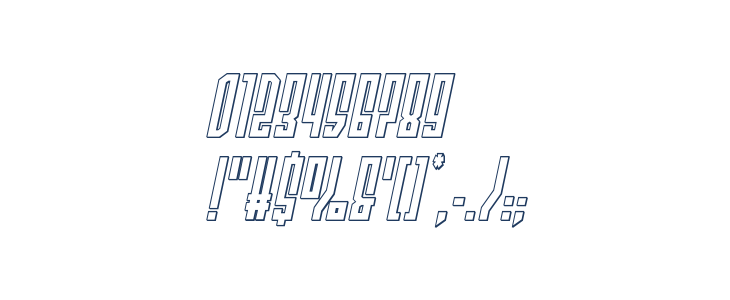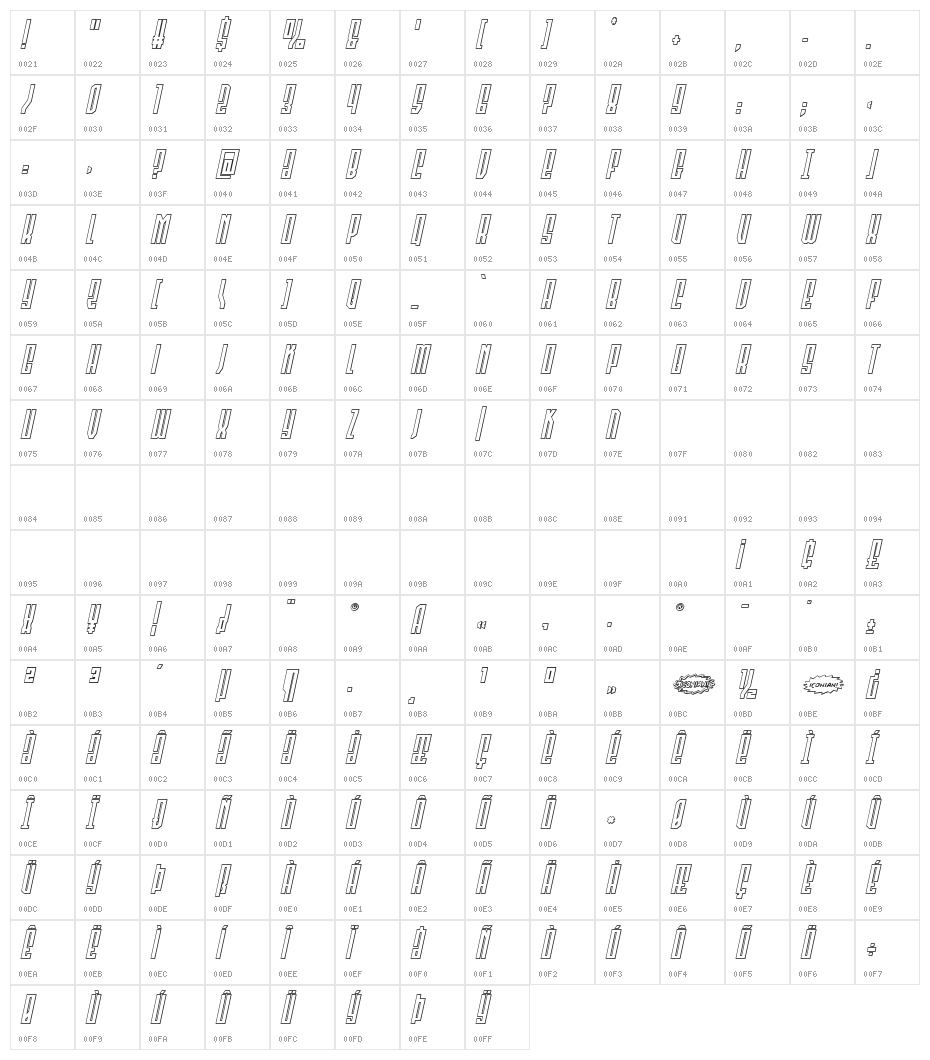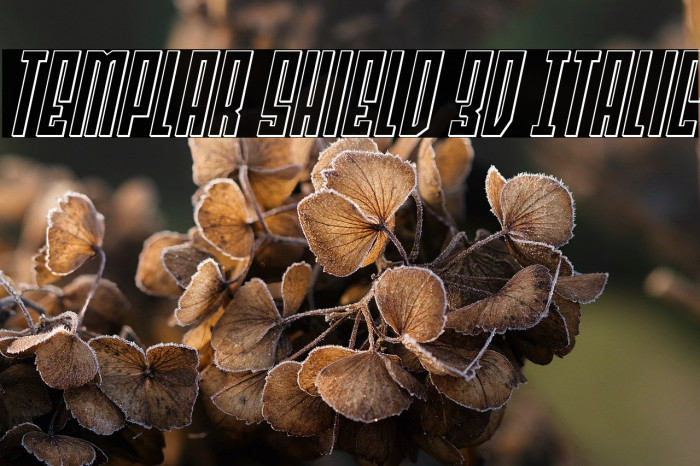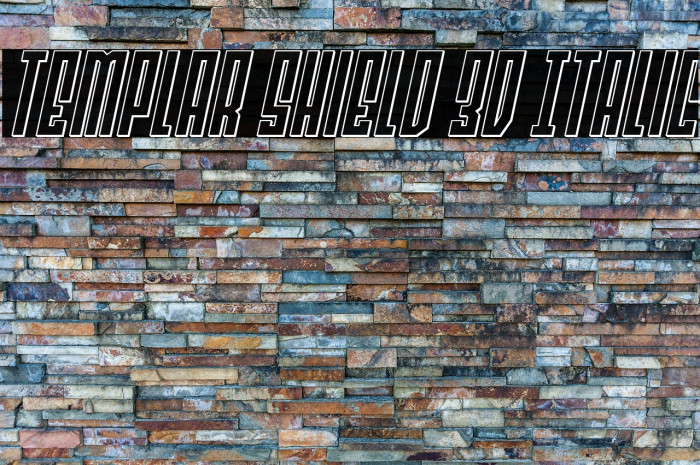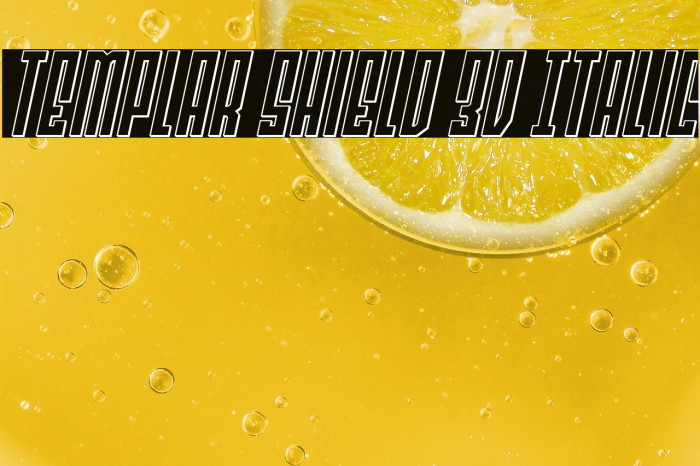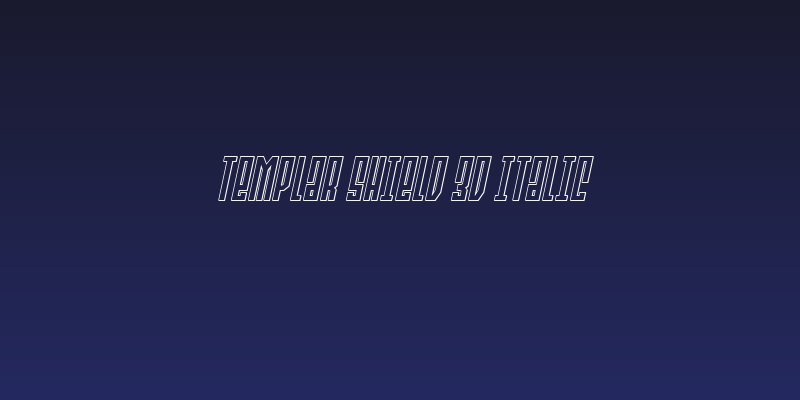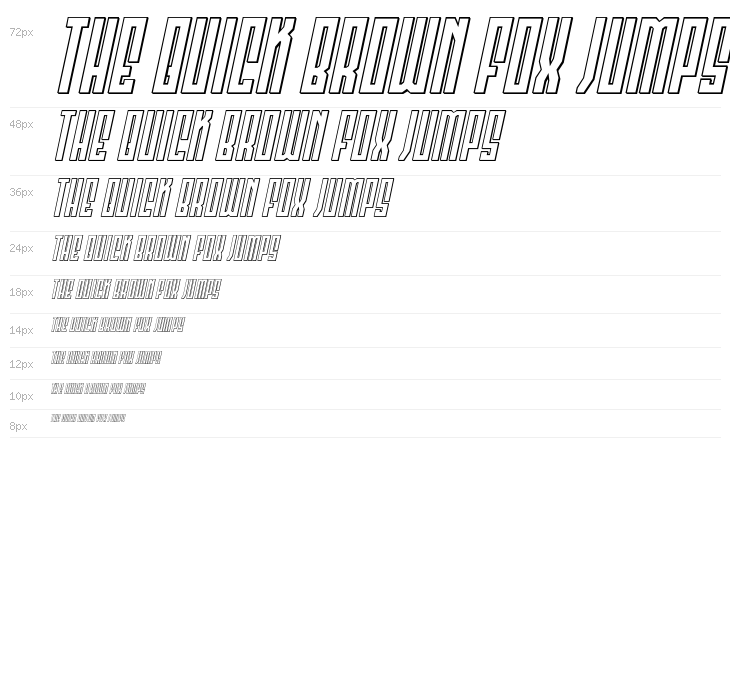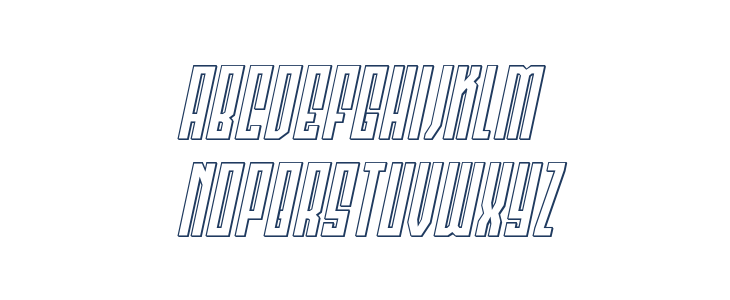
Templar Shield 3D Italic Font
Templar Shield 3D Italic Description
This font exhibits a bold, three-dimensional appearance with a distinct italic slant, creating a dynamic and impactful visual effect. The characters are outlined, giving them a layered look that enhances their depth. The geometric design is consistent across all characters, featuring sharp angles and clean lines. This style is reminiscent of futuristic or sci-fi themes, making it suitable for projects that require a modern and edgy aesthetic. The uppercase and lowercase letters maintain uniformity in style, while the numerals and special characters are designed to match the overall theme, ensuring a cohesive look.
| Proposed Projects | Ideal for video game titles, sci-fi movie posters, tech branding, and futuristic event flyers. |